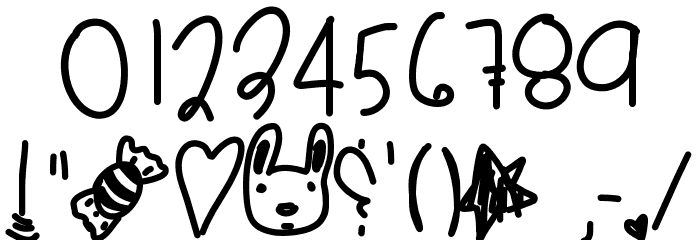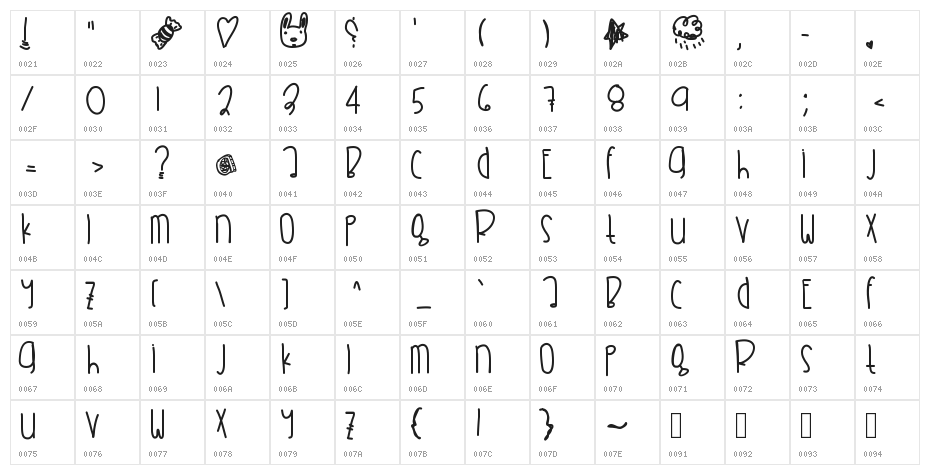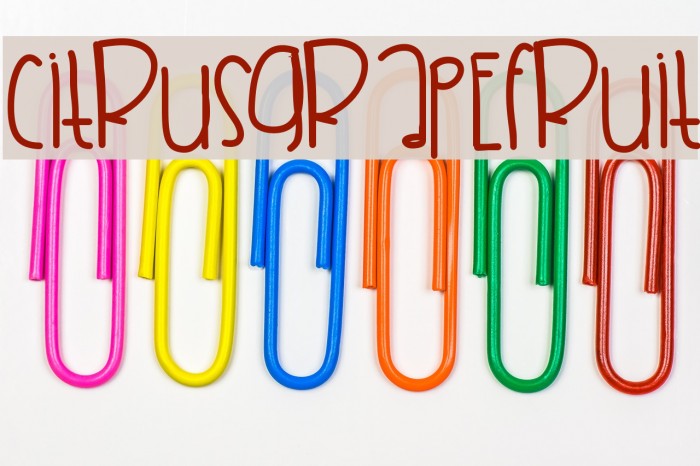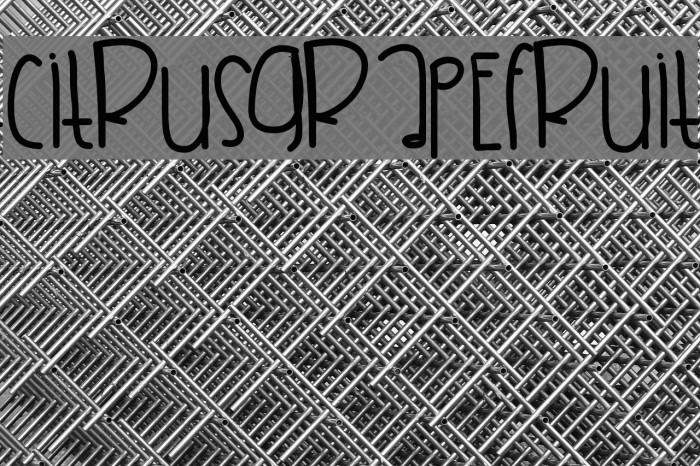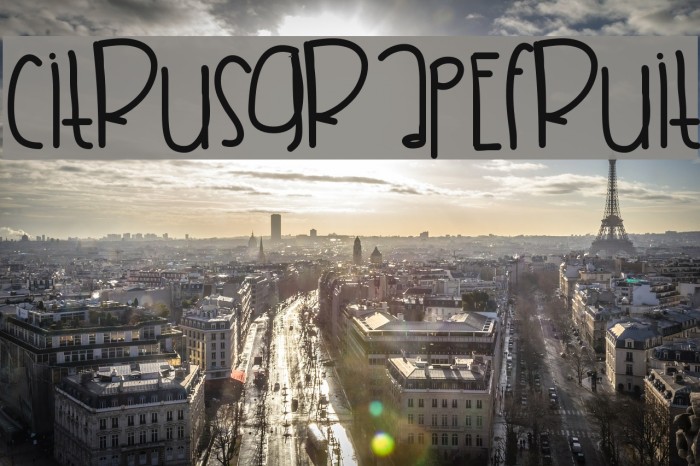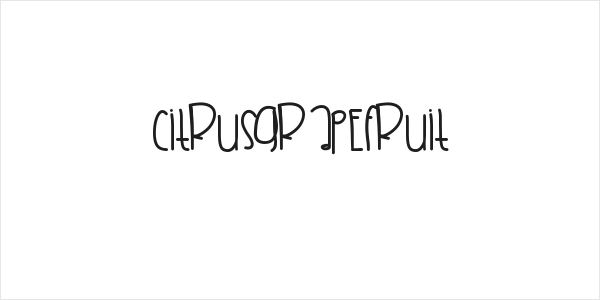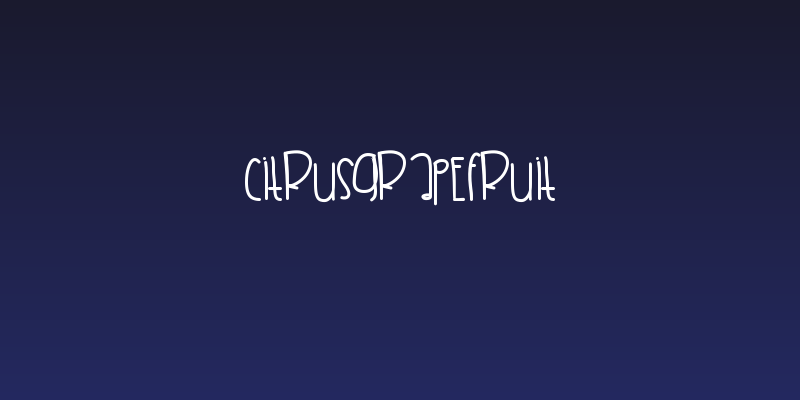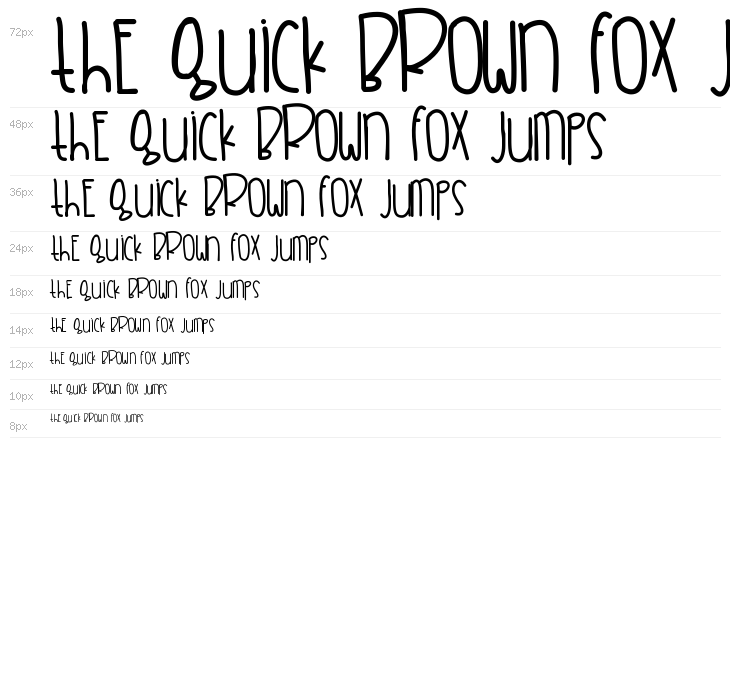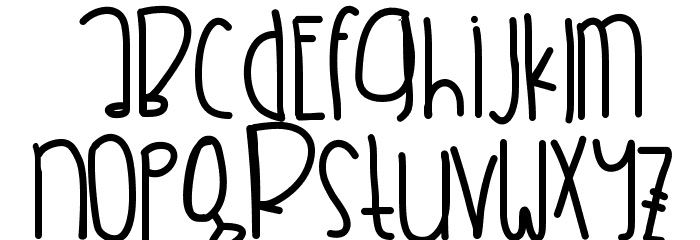
CitrusGrapefruit Font
CitrusGrapefruit Description
This playful and whimsical font features tall, narrow letters with a hand-drawn aesthetic. The characters have a consistent stroke width, giving them a uniform appearance. The uppercase and lowercase letters maintain a similar height, creating a cohesive look. The numbers are rounded and match the style of the alphabet, while the special characters add a touch of fun with their unique designs. Overall, the font exudes a casual and friendly vibe, making it suitable for informal and creative projects.
| Overall Style | Whimsical |
| Proposed Projects | Ideal for children's books, greeting cards, playful branding, and creative social media graphics. |